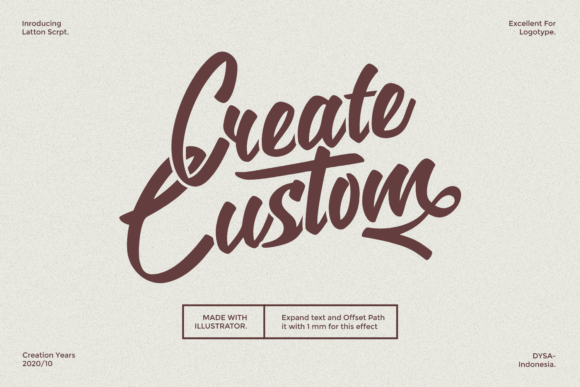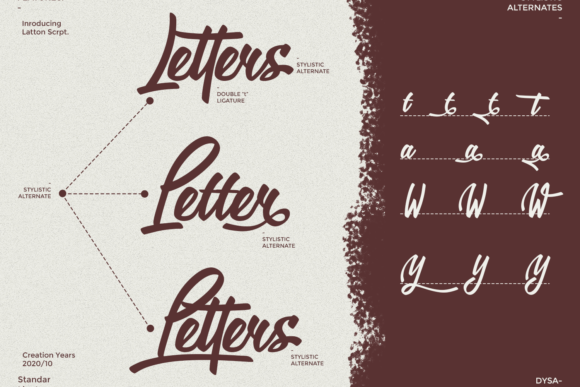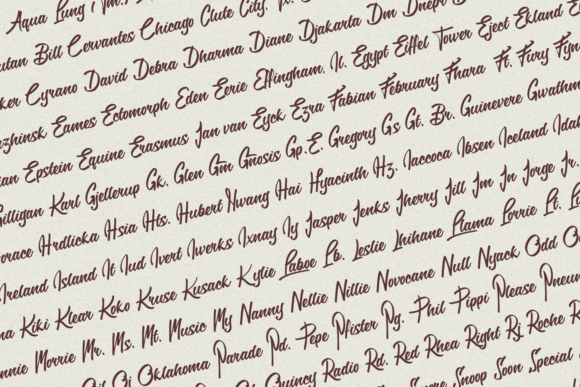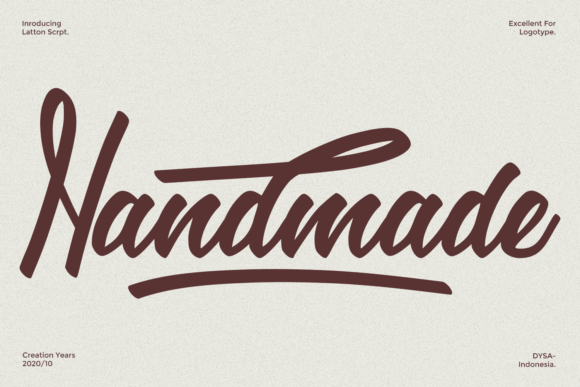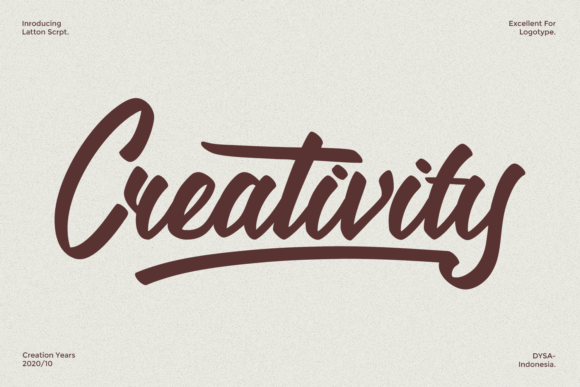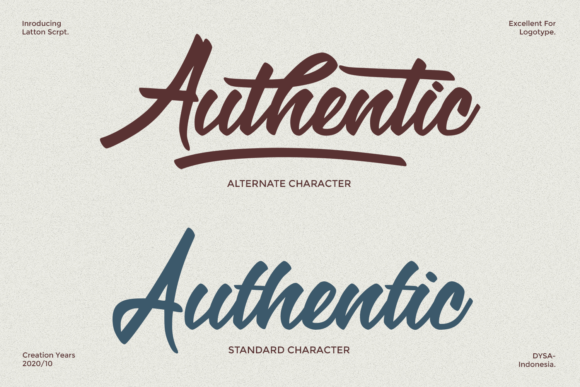
Introduction to Latton Font
Latton is a bold and cursive brushed handwritten font.
It has beautiful and well balanced characters and as a result, it matches a wide pool of designs Add it confidently to your projects, and you wonโt be disappointed.
Key Features of Latton Font